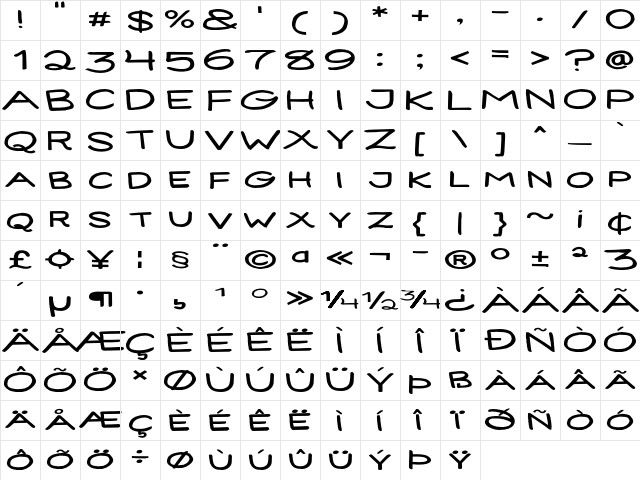
Lansendo Extra-expanded Regular
Style: Extra-expanded Regular
Lansendo Family
Design Context for Lansendo
Lansendo is a composed and adaptable typeface that performs quietly and consistently across a wide range of design contexts.
Pro Tip: Use Lansendo in both headline and body roles to test its range before committing to a single application.